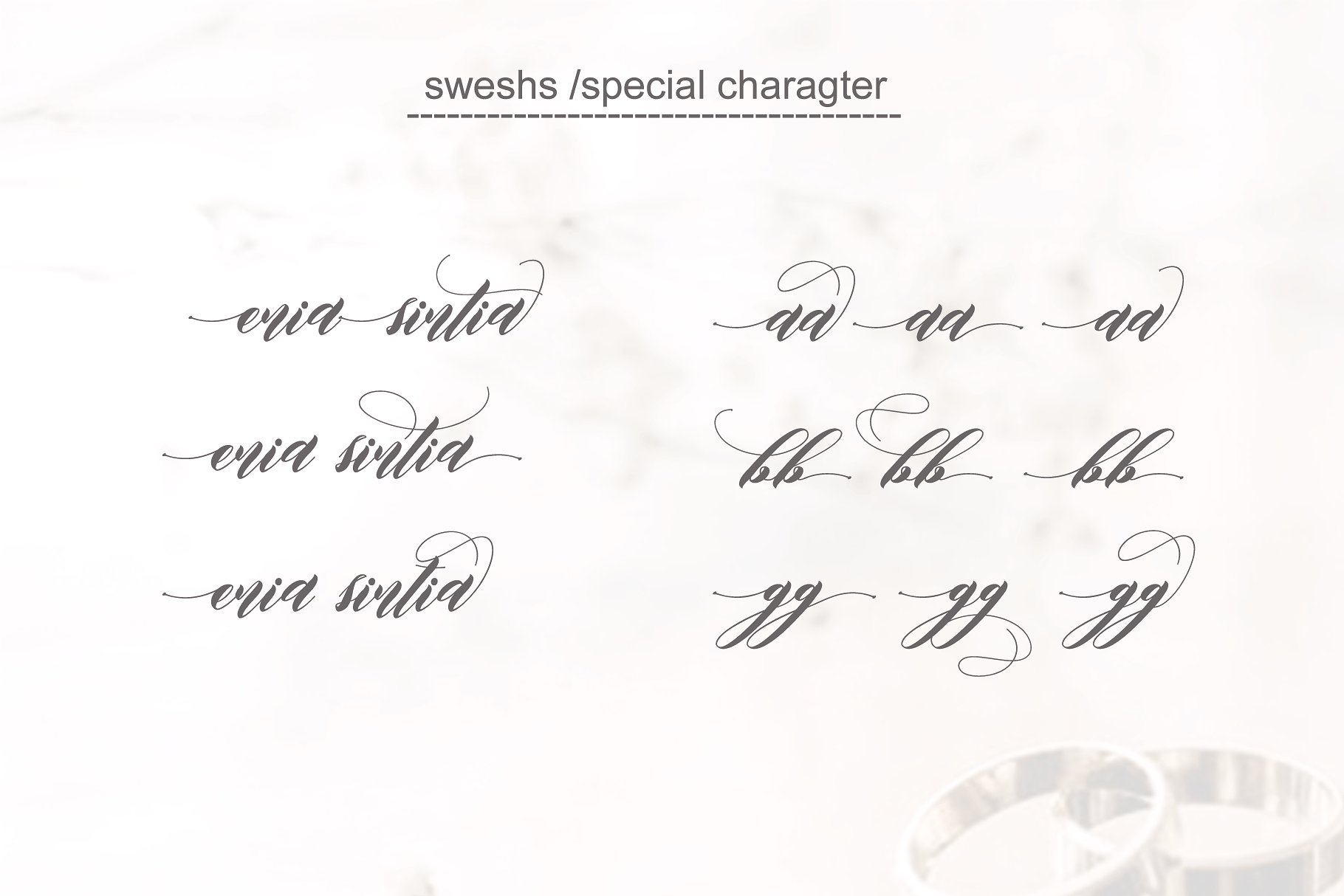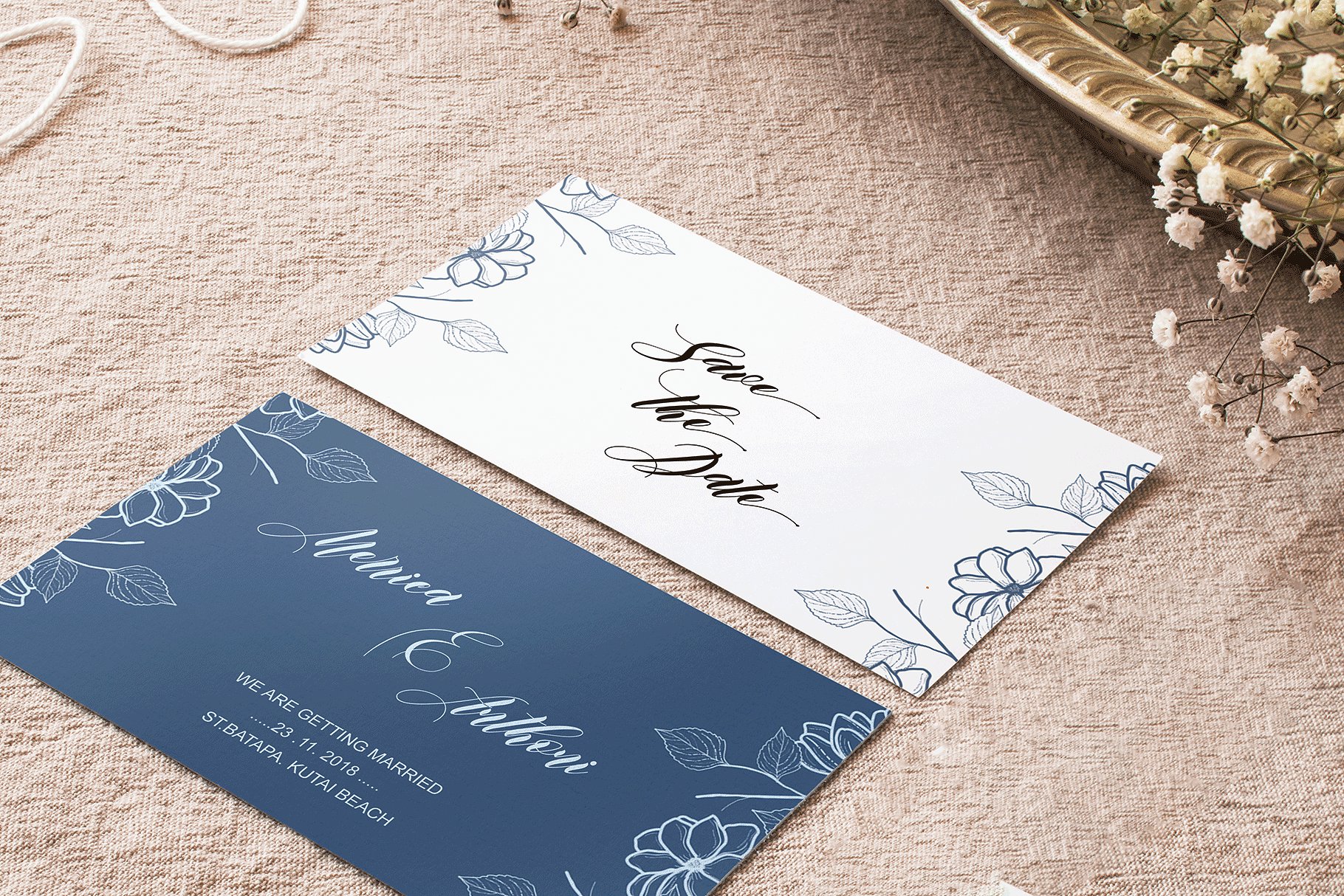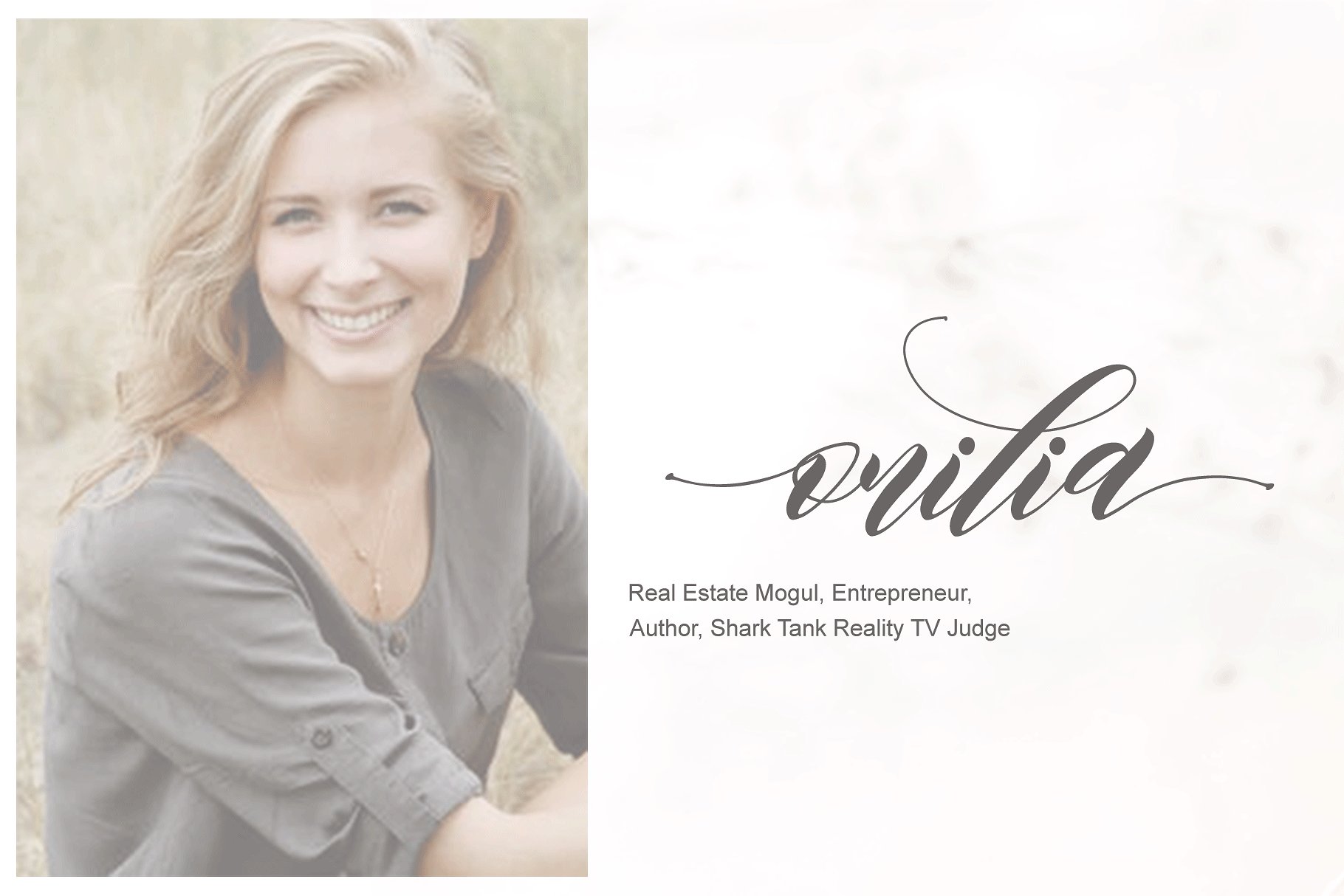
Edore Script Font
A modern calligraphy typeface, lets you transform type into an exciting and beautiful piece of work. Combine all font-styles the way you want, add some ornamental swashes or banners and even a single word becomes magnificent. Introducing Edore Font. Edore is a elegant and modern looking calligraphy script, ideal for use in projects that need an organic and natural style. This font is great for logo, logotype, branding,wedding, fashion, label, book cover, t-shirt, instagram post, and other, and can add an elegant and classy look to your work.